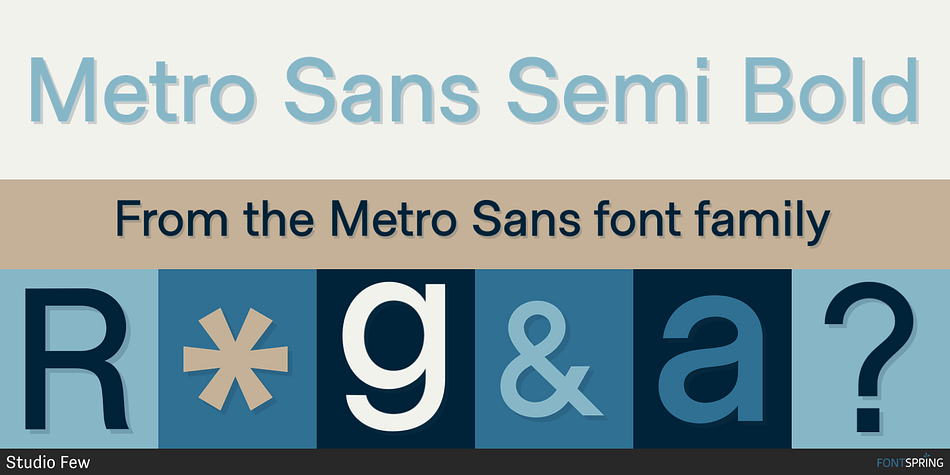
Metro Sans Semi Bold
Metro Sans is a sans serif font family. This typeface has thirteen styles and was published by Studio Few.
The result of a study into the Paris Metro system; Metro Sans is a Grotesk typeface with personality. It bridges the gap between the stern terminals of a Swiss Neo-Grotesk, and the smooth curves of a modern day Geo-Grotesk. The two combine to give a versatile typeface that works well in both body and display weights.